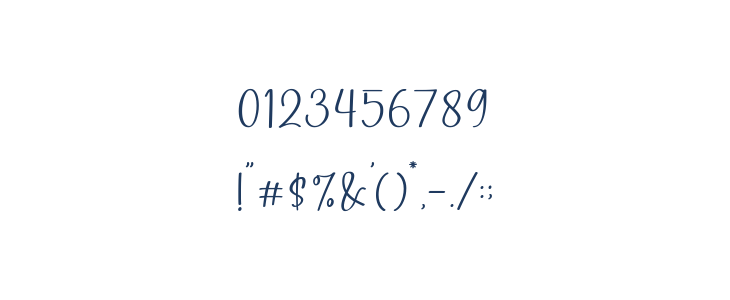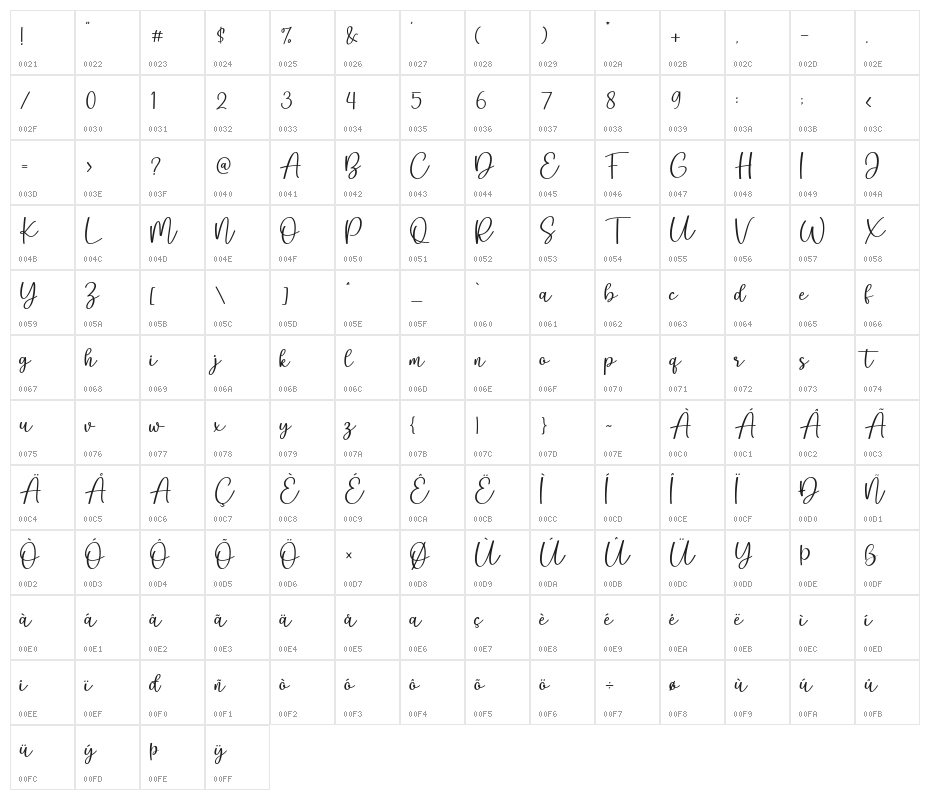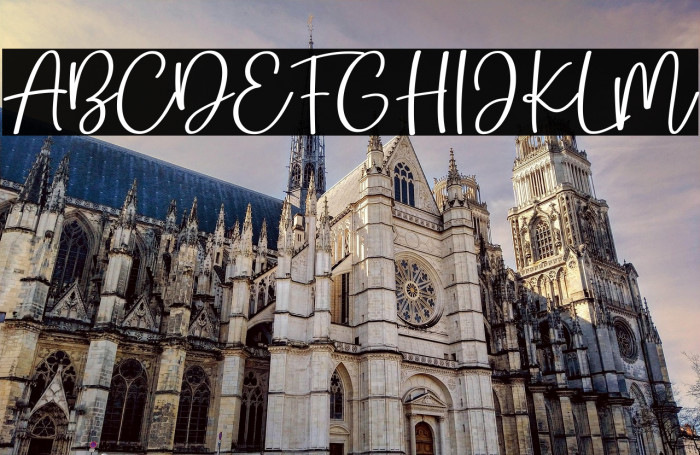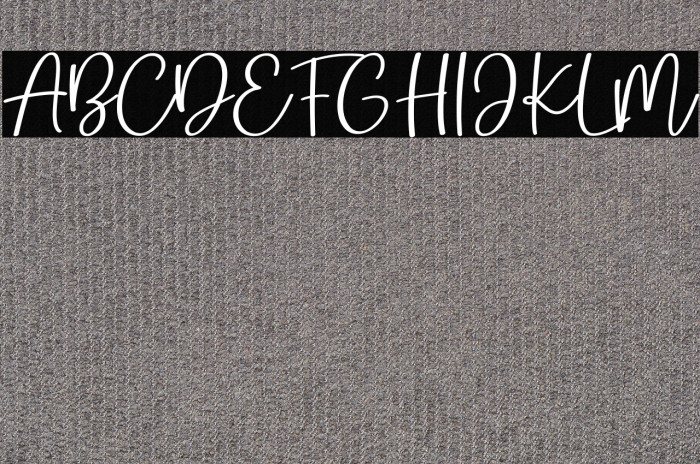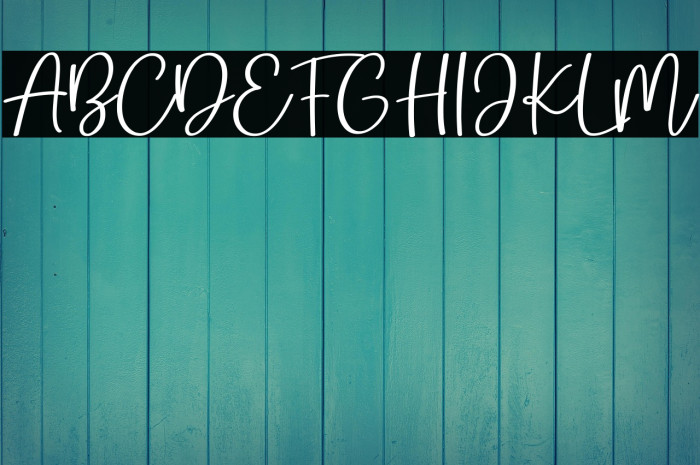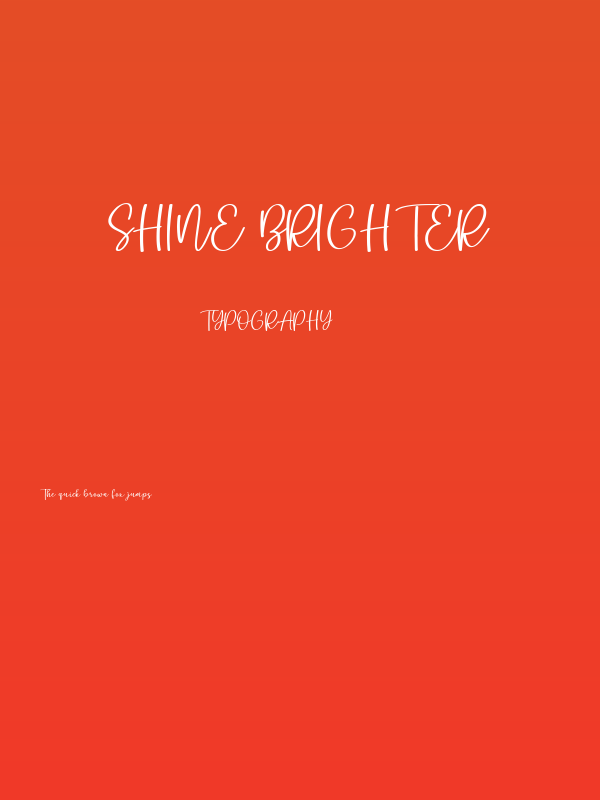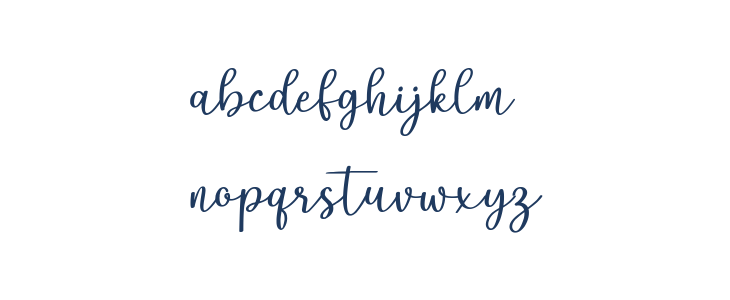
Shine Brighter Font
Shine Brighter Description
This font exudes a playful and elegant handwritten style, characterized by its fluid and connected letterforms. The uppercase letters are bold and slightly elongated, giving a sense of height and grace. The lowercase letters maintain a consistent flow, with smooth curves and a slight slant that adds to the casual yet sophisticated appearance. The numerals are clear and legible, matching the overall aesthetic with their rounded and slightly whimsical design. Special characters are thoughtfully integrated, maintaining the cohesive look of the font. This style is perfect for projects that require a personal touch, such as invitations, greeting cards, or branding materials that aim to convey warmth and approachability.
| Proposed Projects | Ideal for invitations, greeting cards, personal branding, and any project needing a warm, approachable style. |